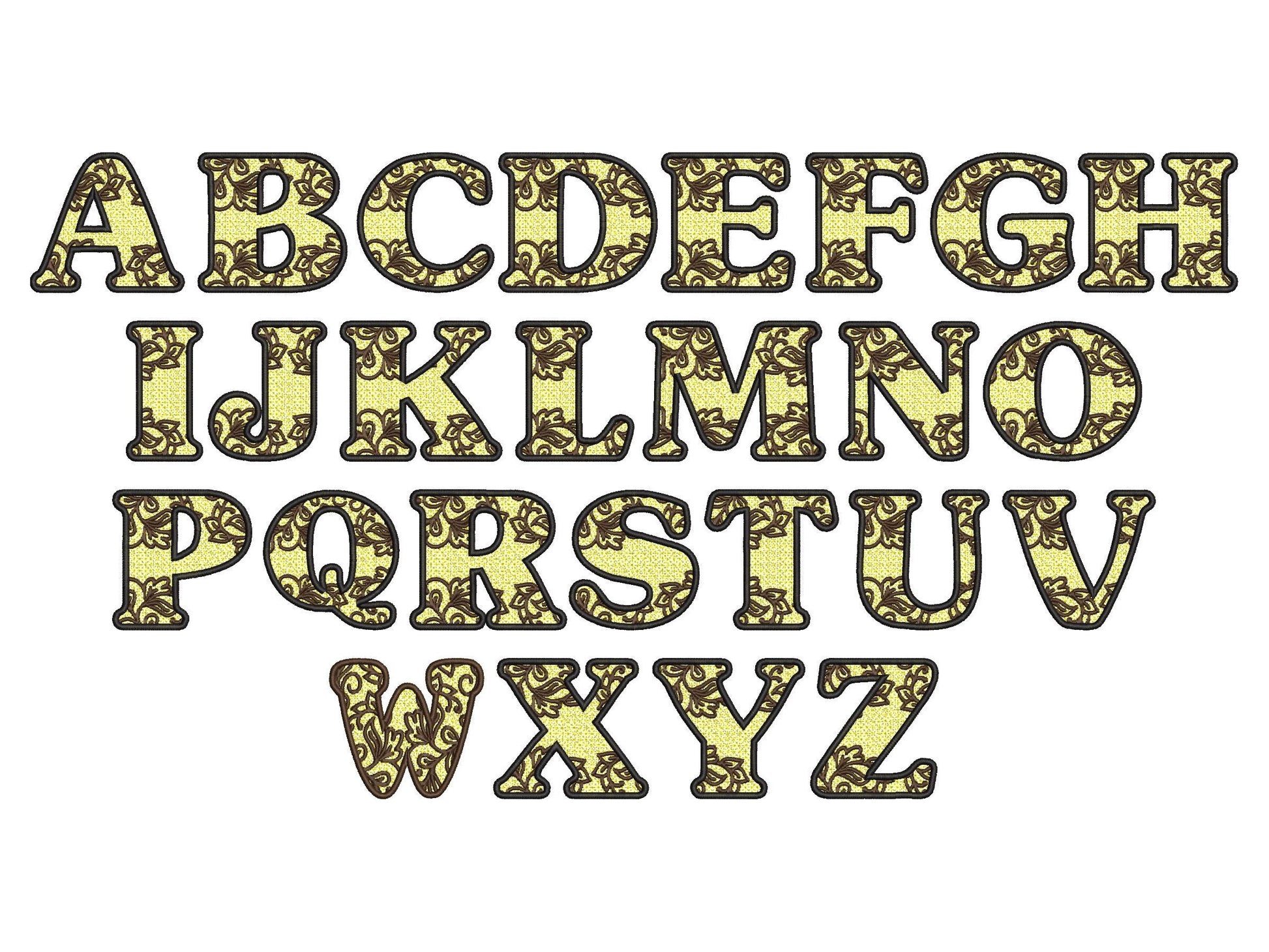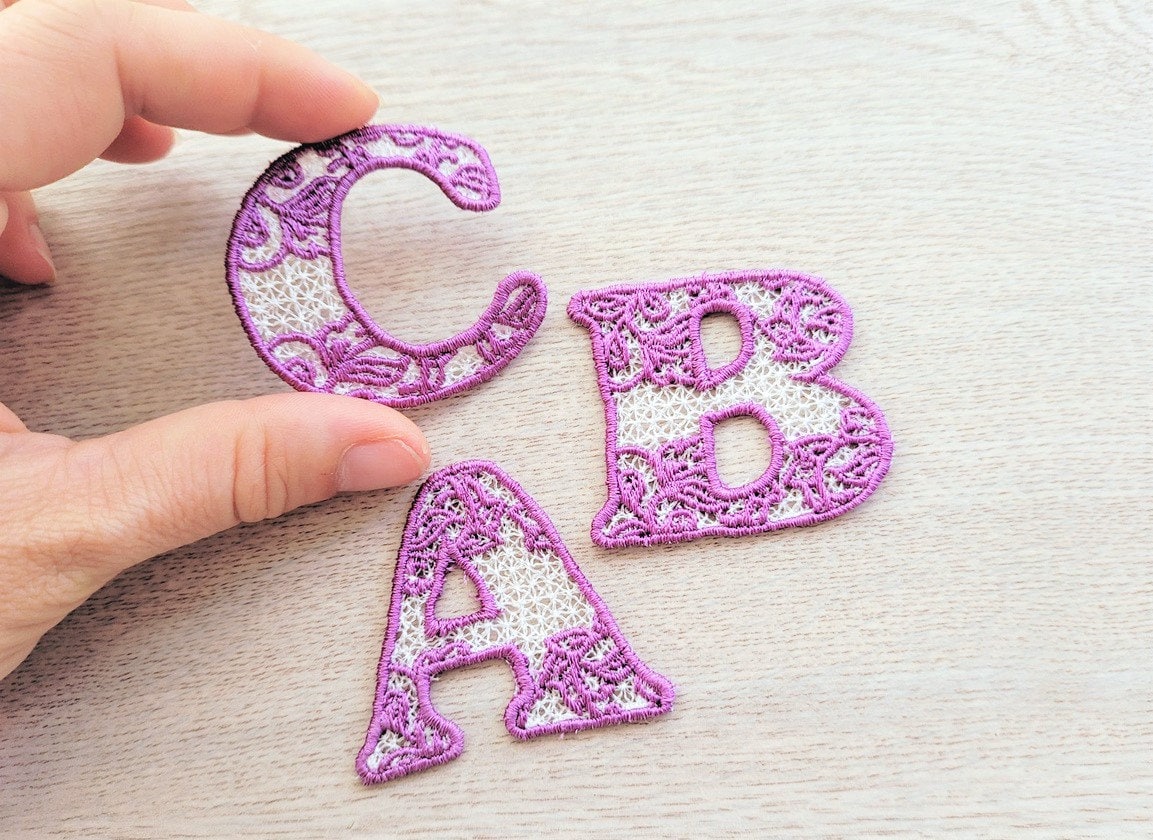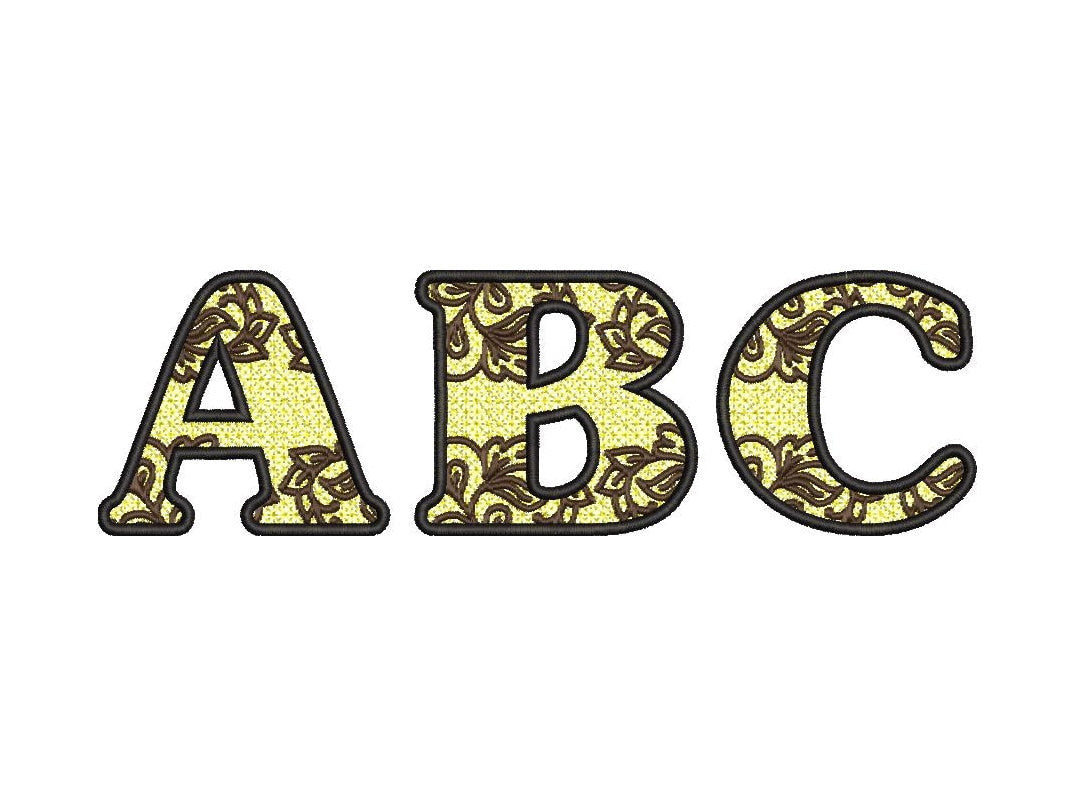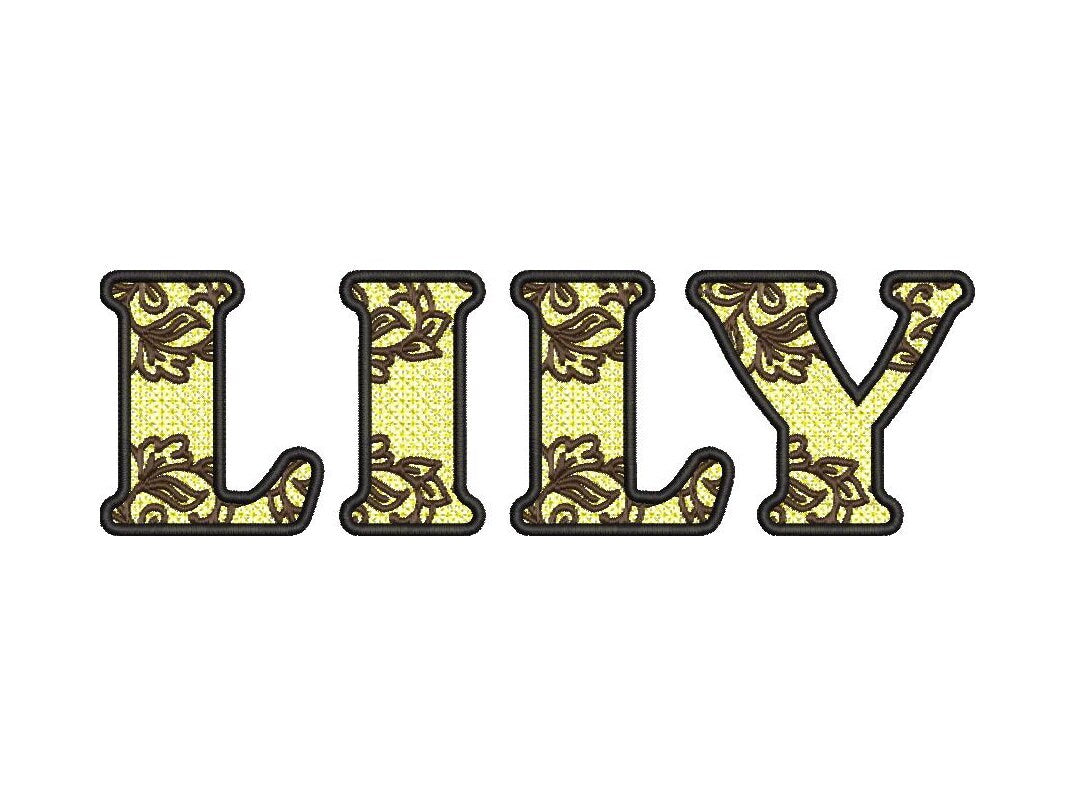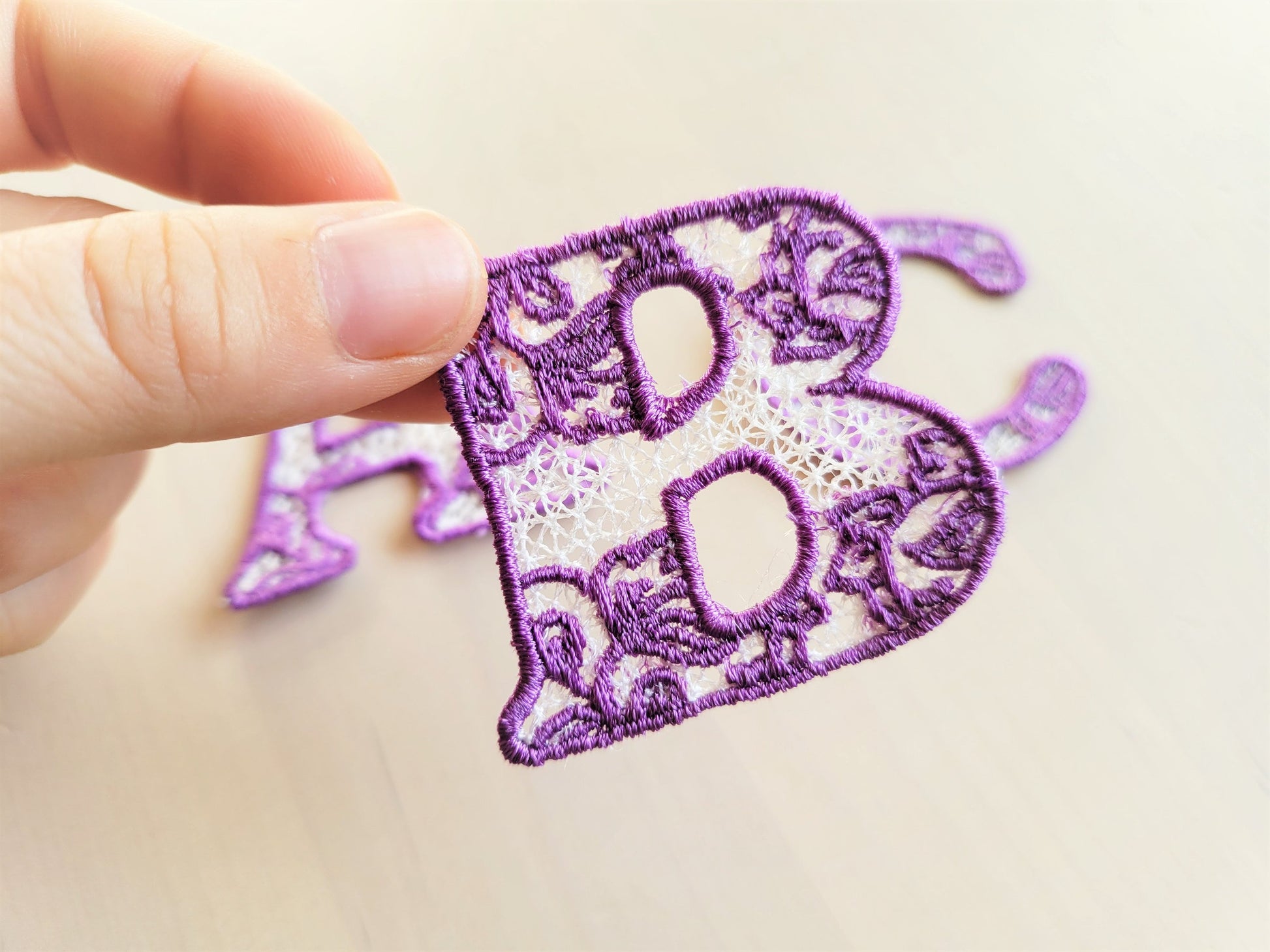
Delicate Lace Monogram Font FSL
Delicate freestanding lace monogram letters. Lovely as ornaments, gift toppers, wedding decor and lace appliques.
Uppercase letters A to Z. Five sizes: 2, 2.5, 3, 3.5 and 4 inches. Stitched on water-soluble stabilizer, then rinsed, leaving only the lace.
• Freestanding lace monogram letters A to Z